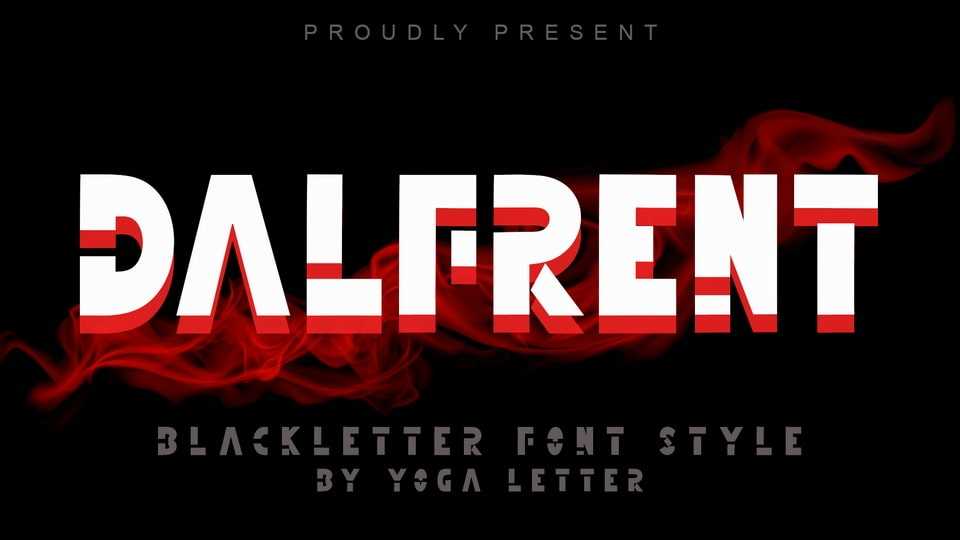
Download Dalfrent font, a unique and elegant blackletter typeface. Very suitable for business branding, Halloween, horror, print, banner, poster, branding, sticker, logo, summer, Christmas and others.